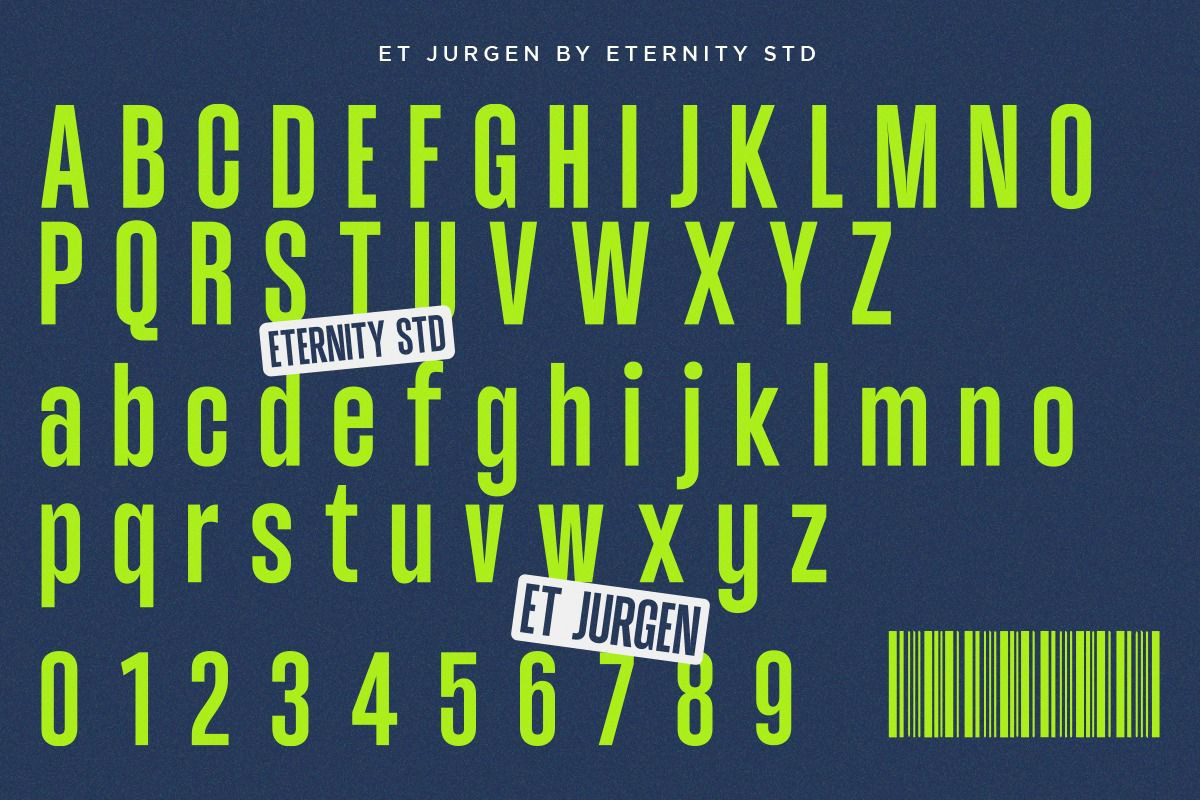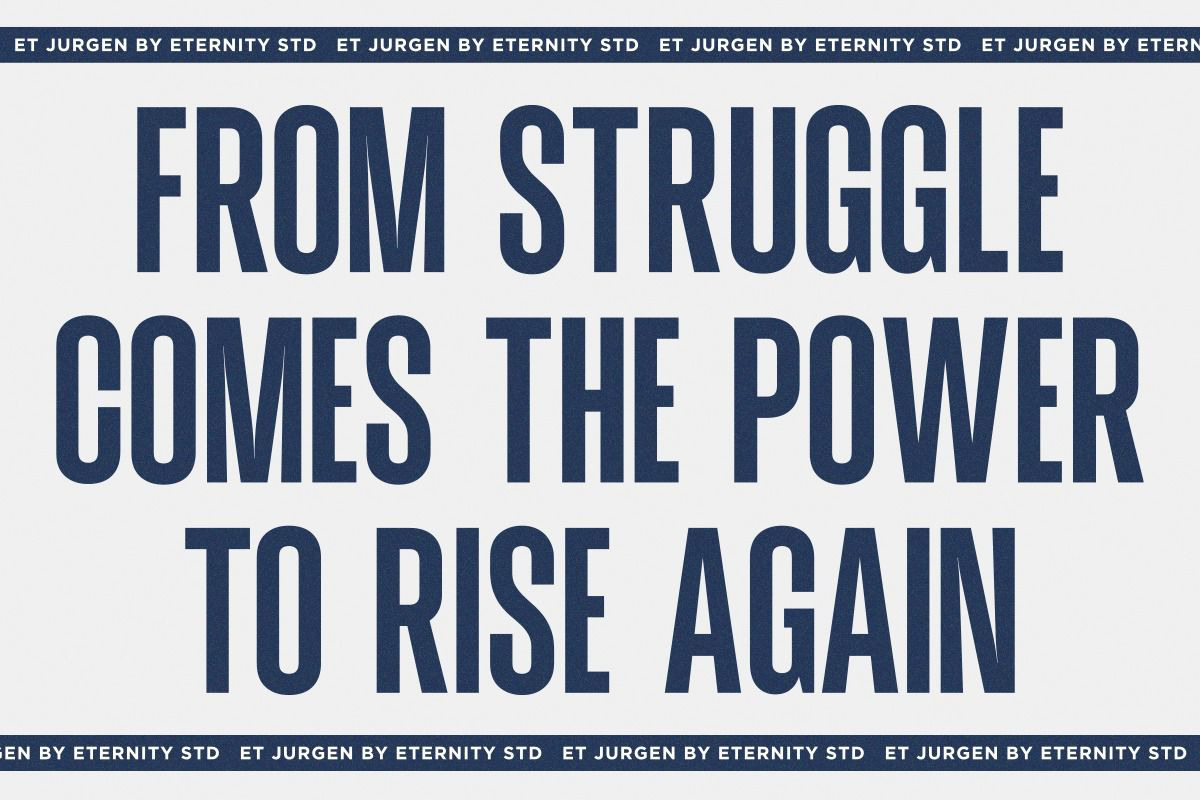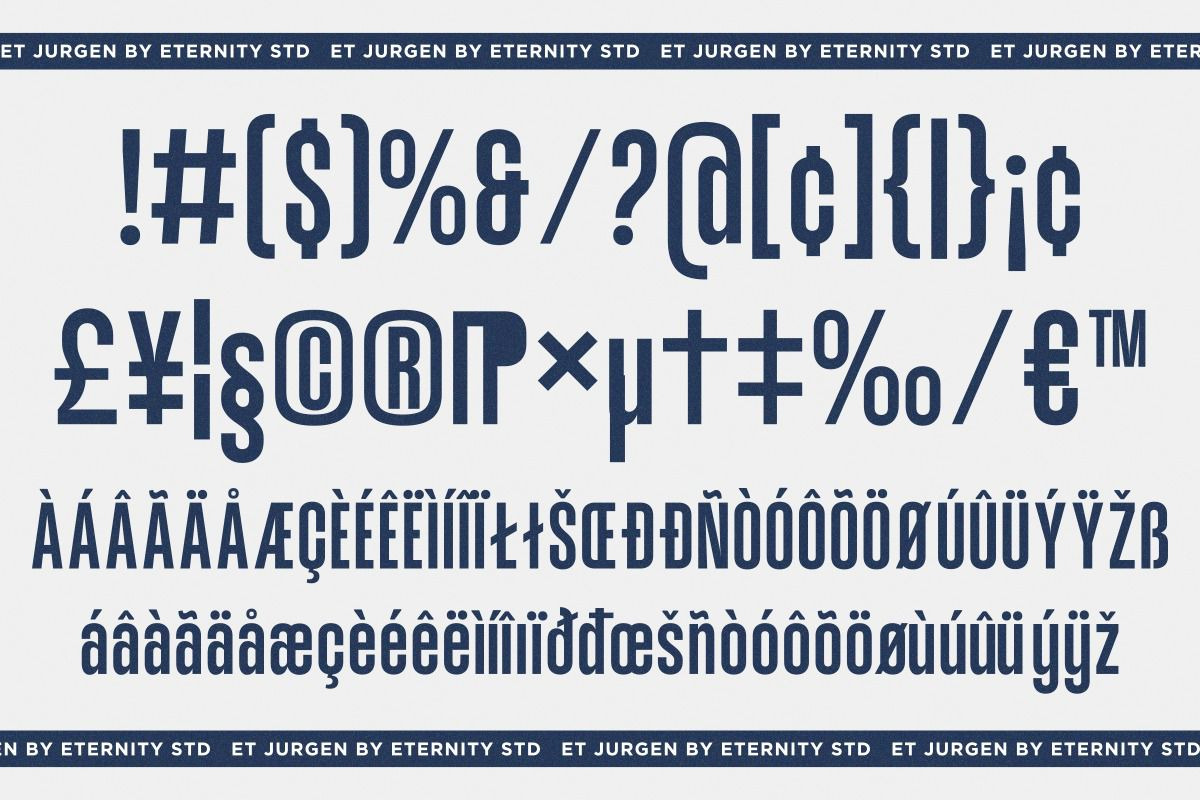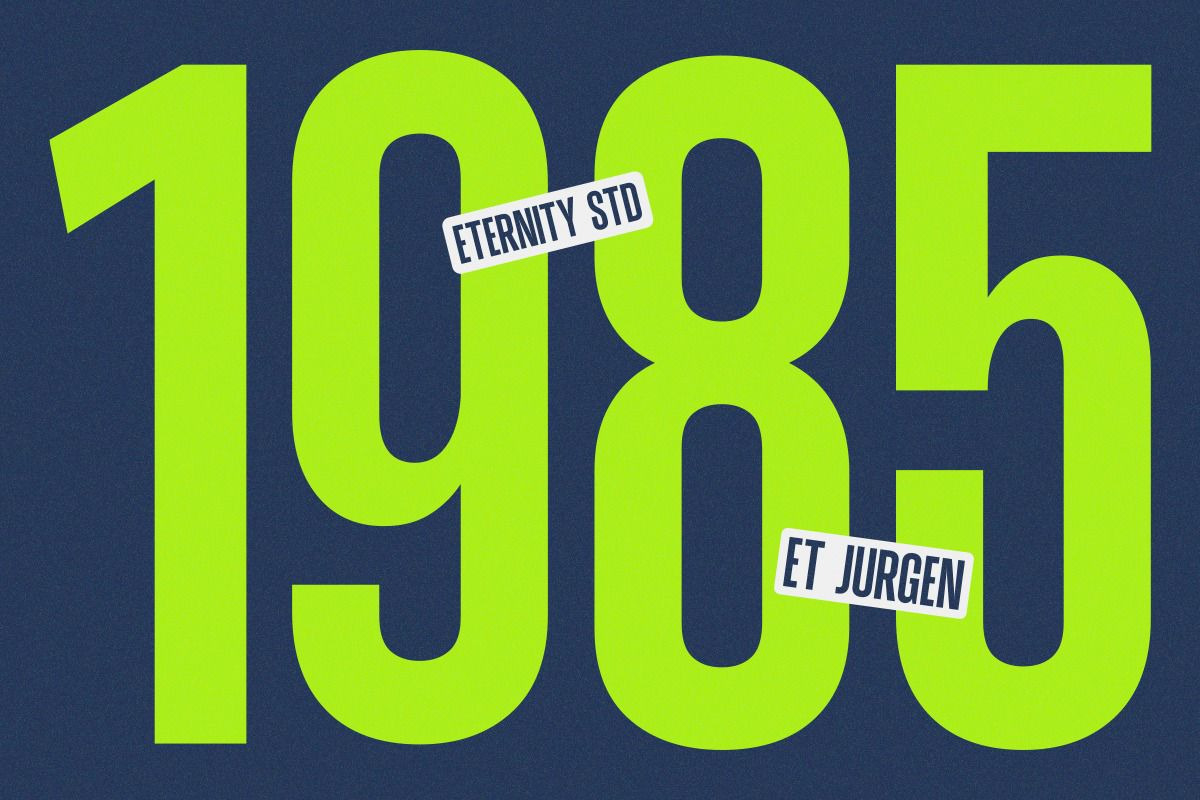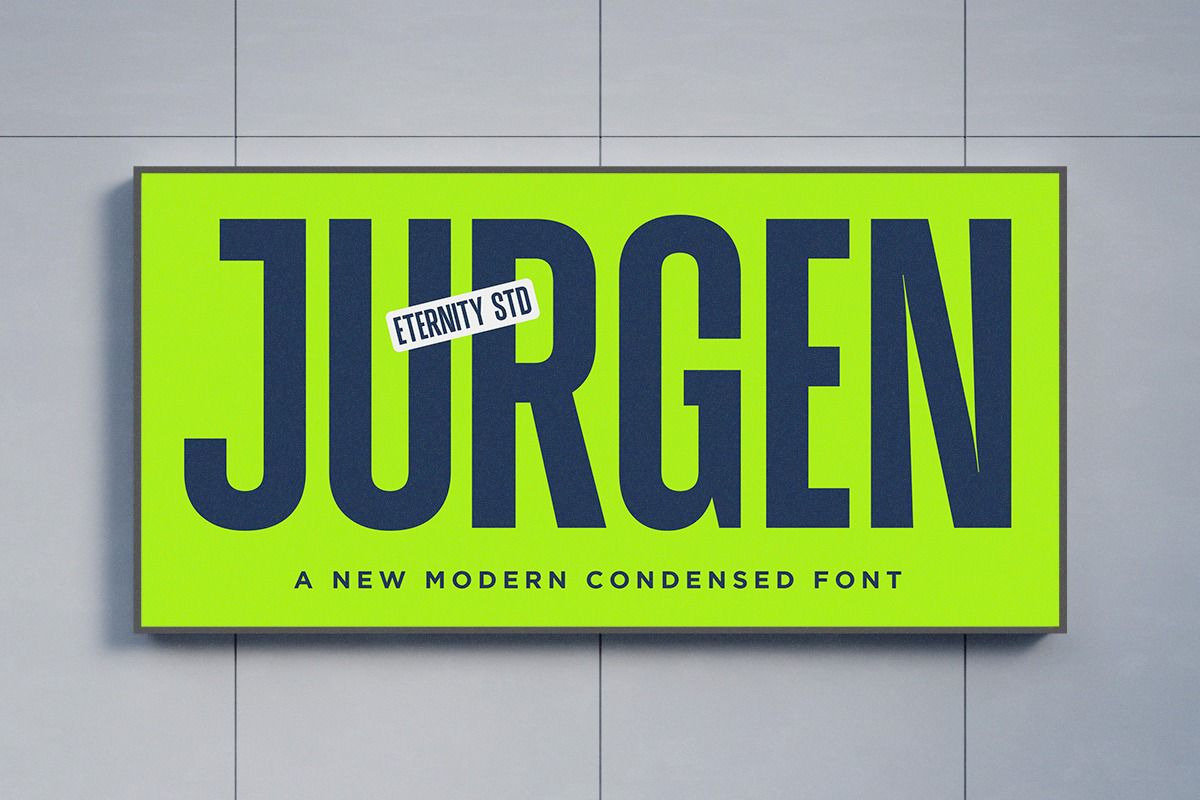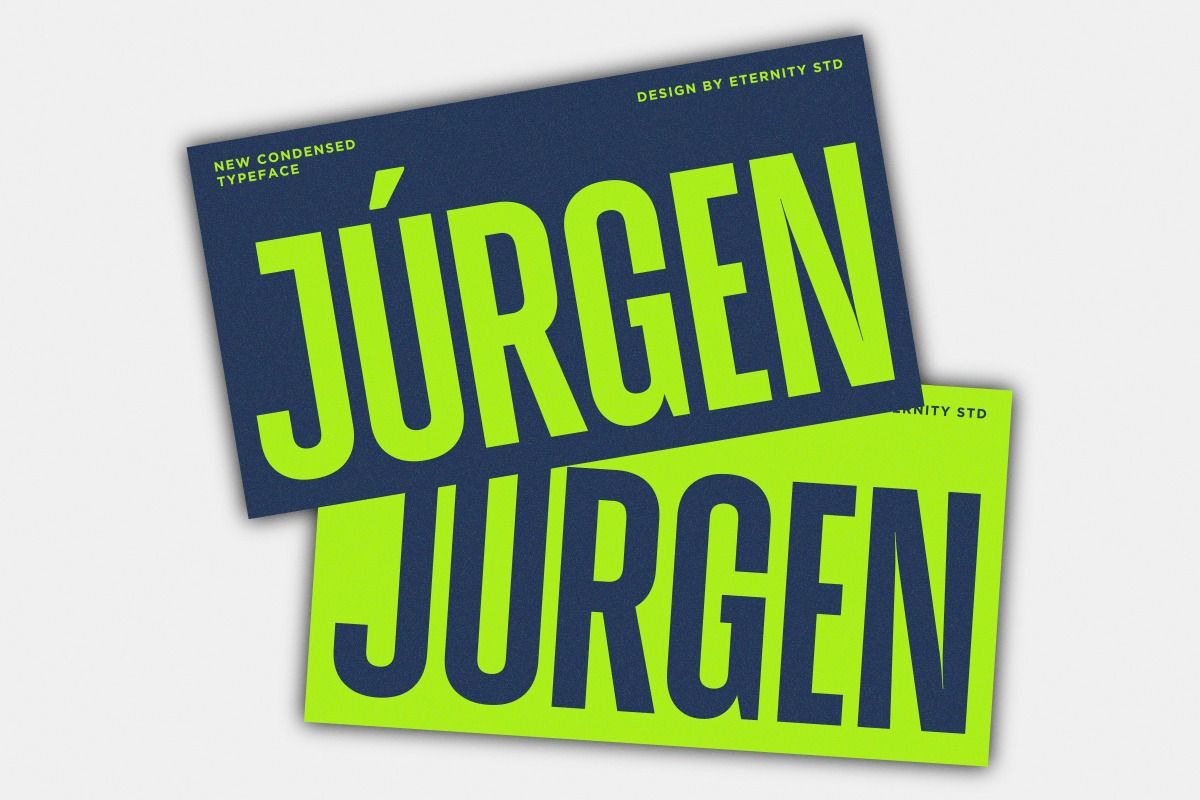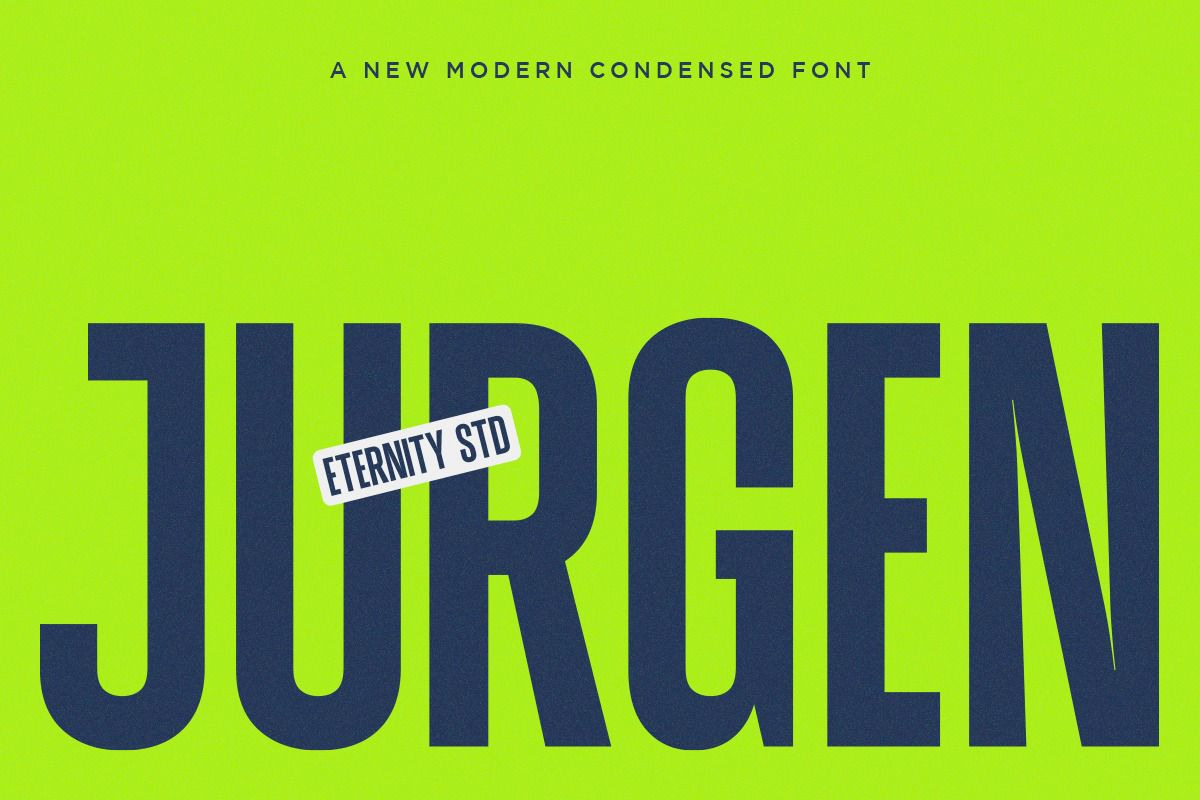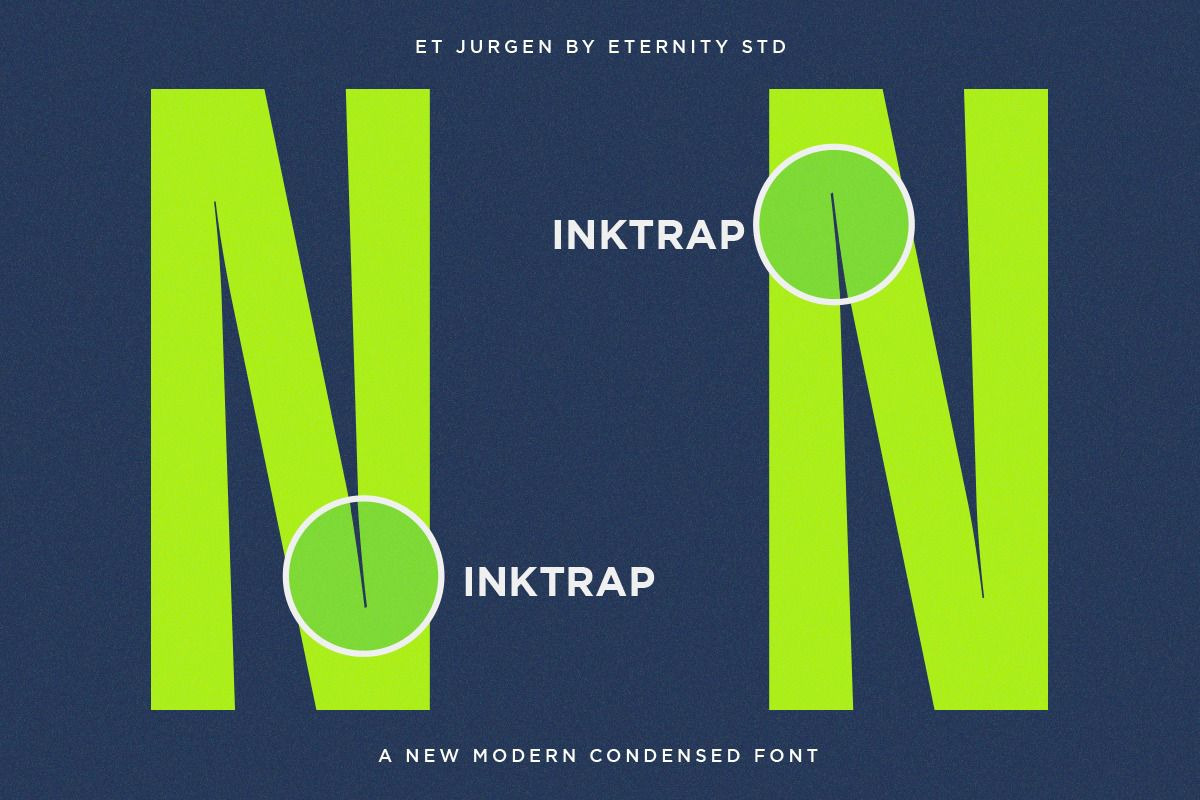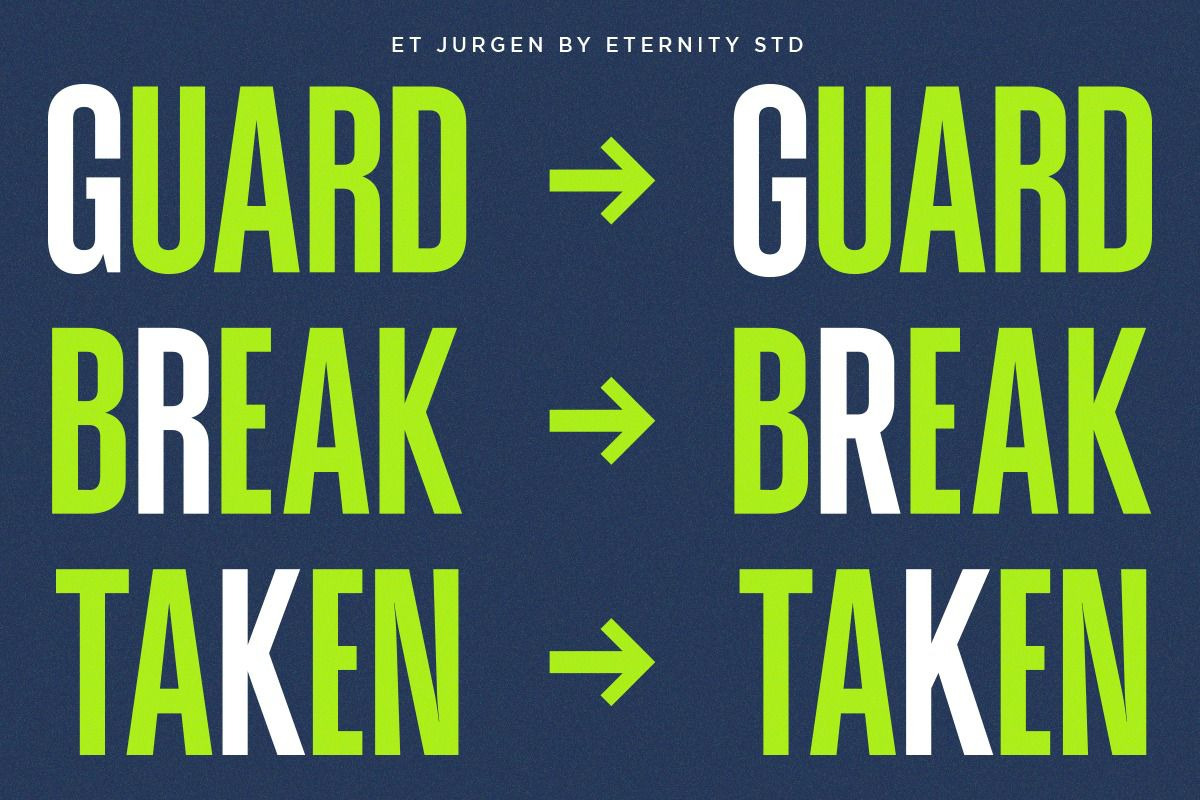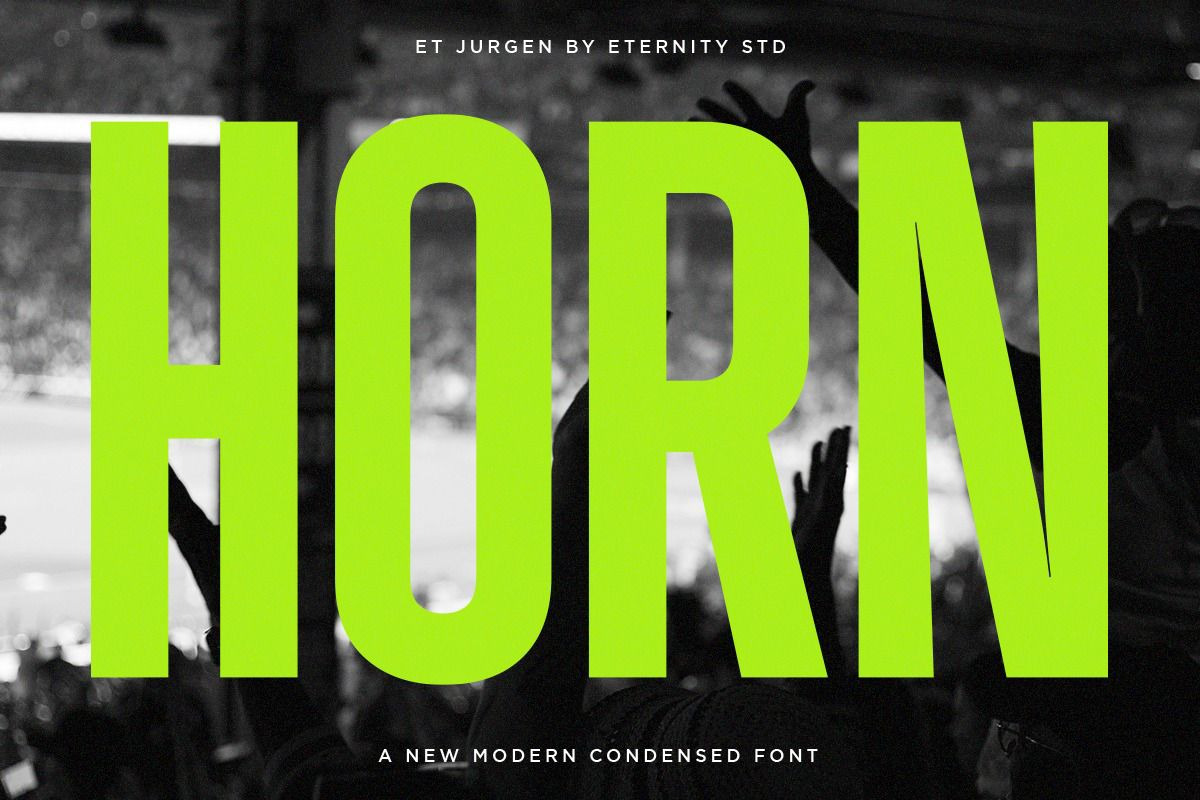
ET Jurgen -New Modern Condensed Font
ET JURGEN is the ultimate expression of modern typography. This sharply condensed Sans Serif delivers maximum visual impact in minimal space. Designed with precision, its clean lines and confident structure make it the perfect choice for high-fashion branding, compelling headlines, and any project that demands a distinct, powerful aesthetic.
Bold Display Power: Designed for large sizes, ensuring your headlines, titles, and posters grab immediate attention.
Space Optimization: Condensed height allows more text while maintaining powerful visual weight, perfect for labels and tight editorial spreads.
Modern Versatility: Its clean lines make it highly compatible with minimalist or luxury design systems.
Unrivaled Clarity: Maintains flawless readability across digital and print media despite its punchy style.
High-End Branding & Logos
Magazine Titles & Headlines
Apparel & Merchandise Design
Album Covers & Posters
Creative Marketing Campaigns
Uppercase & Lowercase Characters